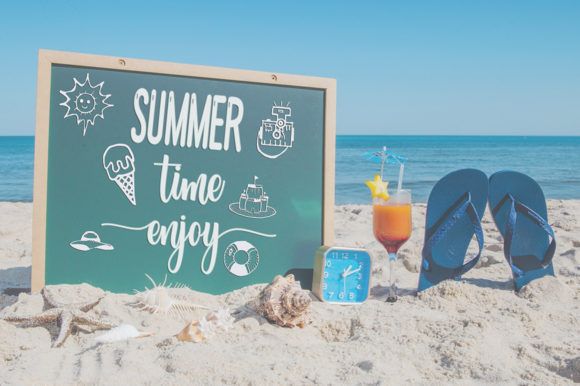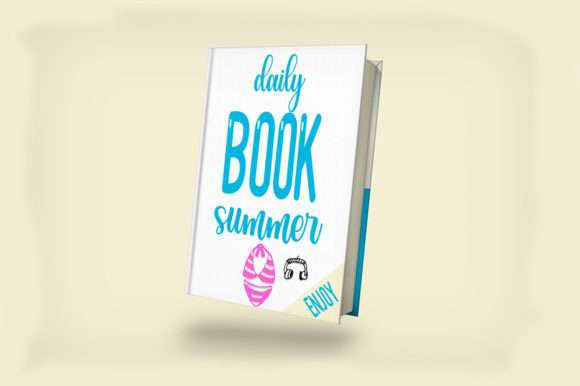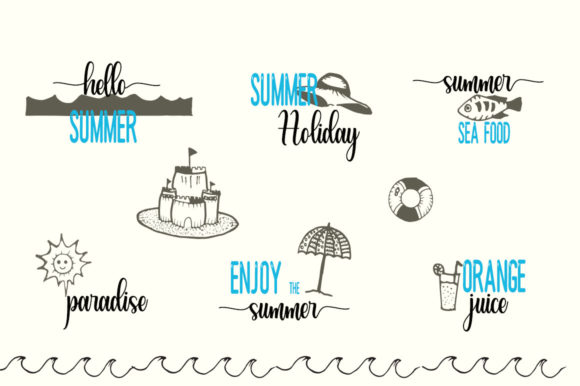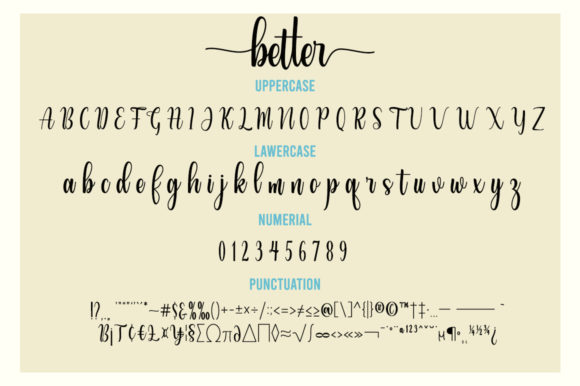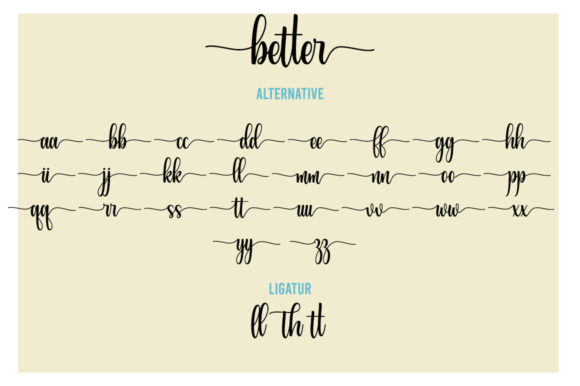
Summer Vibes, Endless Design Possibilities
As the sun shines bright and long days stretch into warm nights, the creative juices start flowing. You’re itching to dive into a new design project, but you need the perfect font to bring it to life. That’s where the Better Summer Font comes in – a stunning duo font that combines the elegance of a sans serif with the whimsy of a script.
This incredible font is more than just a pretty face; it’s a versatile tool that can elevate any design to new heights. With its PUA encoding, you’ll have access to a wide range of glyphs and swashes, giving you endless possibilities for creativity. Whether you’re designing a summer-themed campaign or simply want to add some warmth to your brand’s aesthetic, the Better Summer Font is the perfect addition to your design toolkit.
Better Summer Font Key Features
- Font Family: Better Summer Font is a unique, hand-drawn font designed to evoke feelings of warmth and relaxation. It features a combination of smooth curves and subtle imperfections.
- Character Set: Includes a comprehensive set of characters, including uppercase and lowercase letters, numbers, punctuation, and special characters, ensuring versatility and readability.
- Unique Characteristics: The Better Summer Font features a distinctive, cursive-like feel with subtle flourishes, making it ideal for creating eye-catching headlines, titles, and other design elements.
Review of “Better Summer Font”
Overall, I was excited to dive into the “Better Summer Font” and see what it has to offer. As a designer, I appreciate unique and stylish fonts that can elevate a project’s aesthetic.
- The font’s relaxed, casual vibe is perfect for summer-themed projects or websites.
- The bold and light versions of the font offer versatility in terms of design applications.
- The font’s legibility is clear, making it suitable for body text or headings.
- The font may be too casual for formal or professional projects, which could limit its use.
- The lack of italic or oblique styles might be a drawback for designers who prefer a more extensive font library.
- The font’s design may not be suitable for small text sizes, which could lead to readability issues.
While “Better Summer Font” has its strengths, I feel that its limitations might hold it back from being a go-to choice for designers. However, it’s still a great option for casual projects or websites that require a relaxed, summer-inspired aesthetic.
Tips for Getting the Most Out of Better Summer Font
Use Better Summer Font for headings, titles, and emphasis to add visual interest to your designs.
Pair Better Summer Font with a sans-serif font for body text to create a clear and readable layout.
Experiment with different font sizes, colors, and styles to find the perfect combination for your design.
Q: Is the Better Summer Font compatible with all font sizes and resolutions?
The Better Summer Font is designed to be highly scalable and legible at various font sizes and resolutions. However, as with any font, there may be some limitations when using extremely small font sizes (e.g., below 8 points) or very large font sizes (e.g., above 48 points). We recommend using the font within the recommended size range of 10-24 points for optimal results.